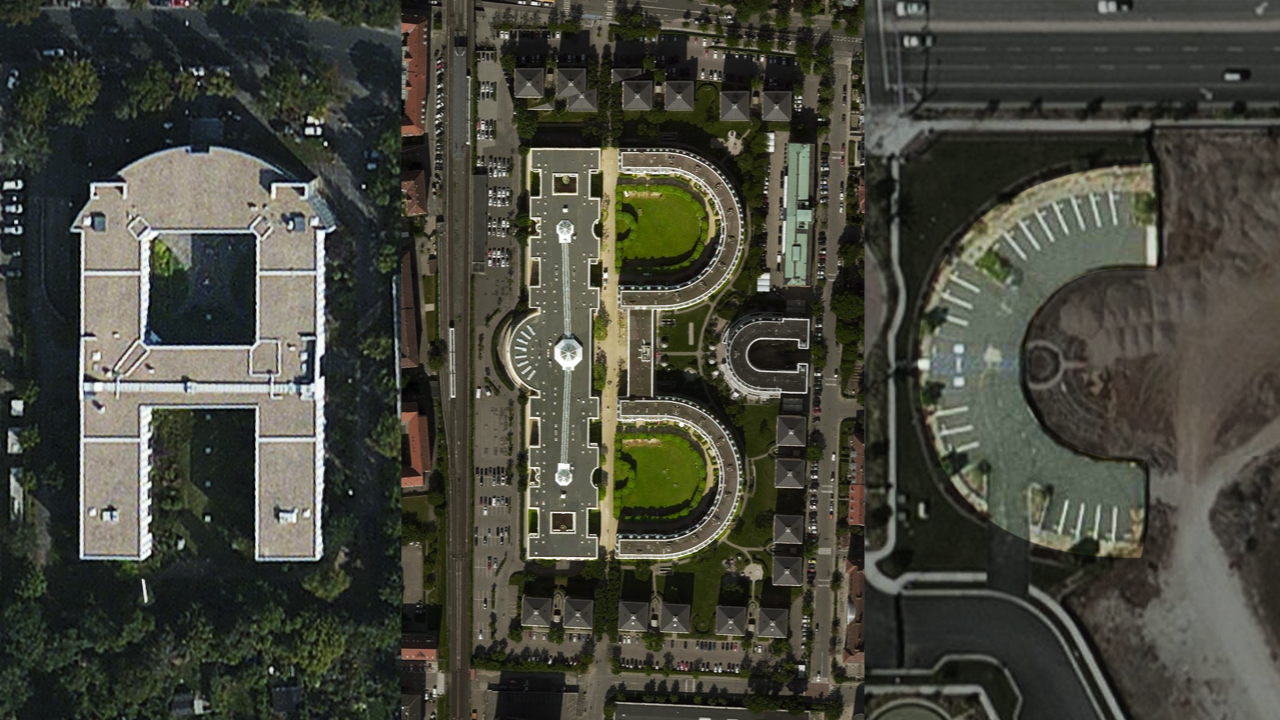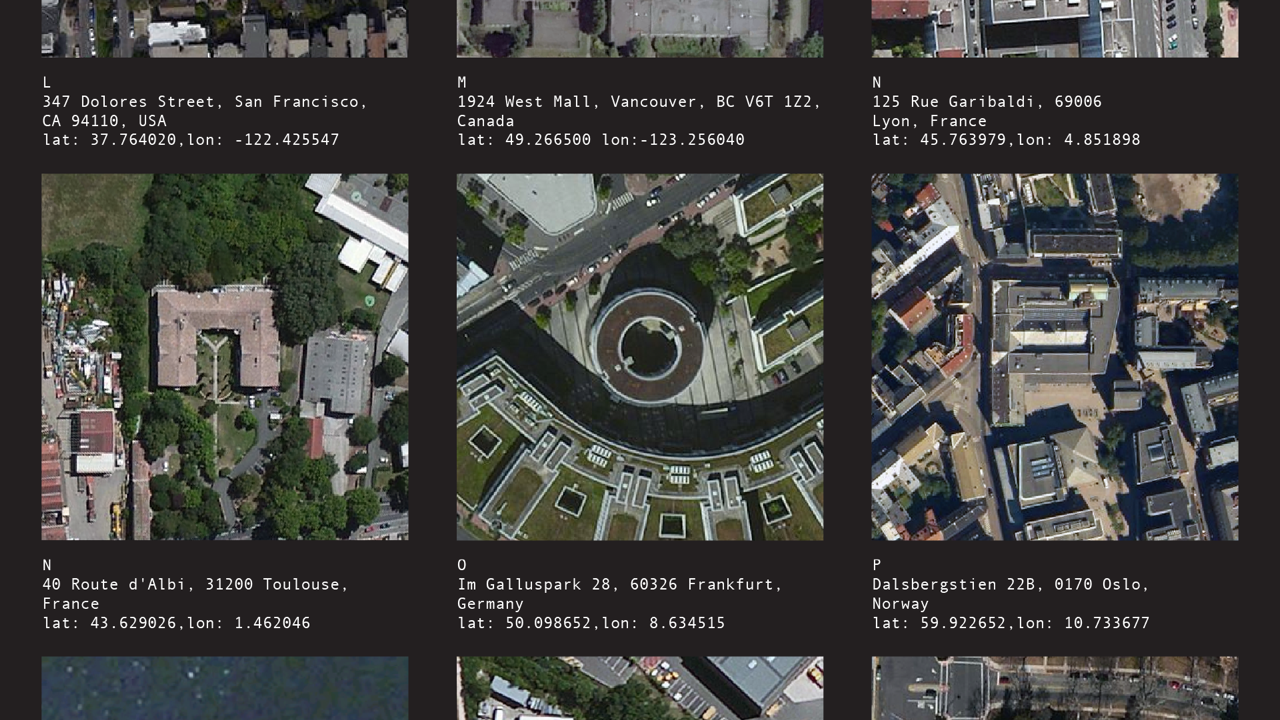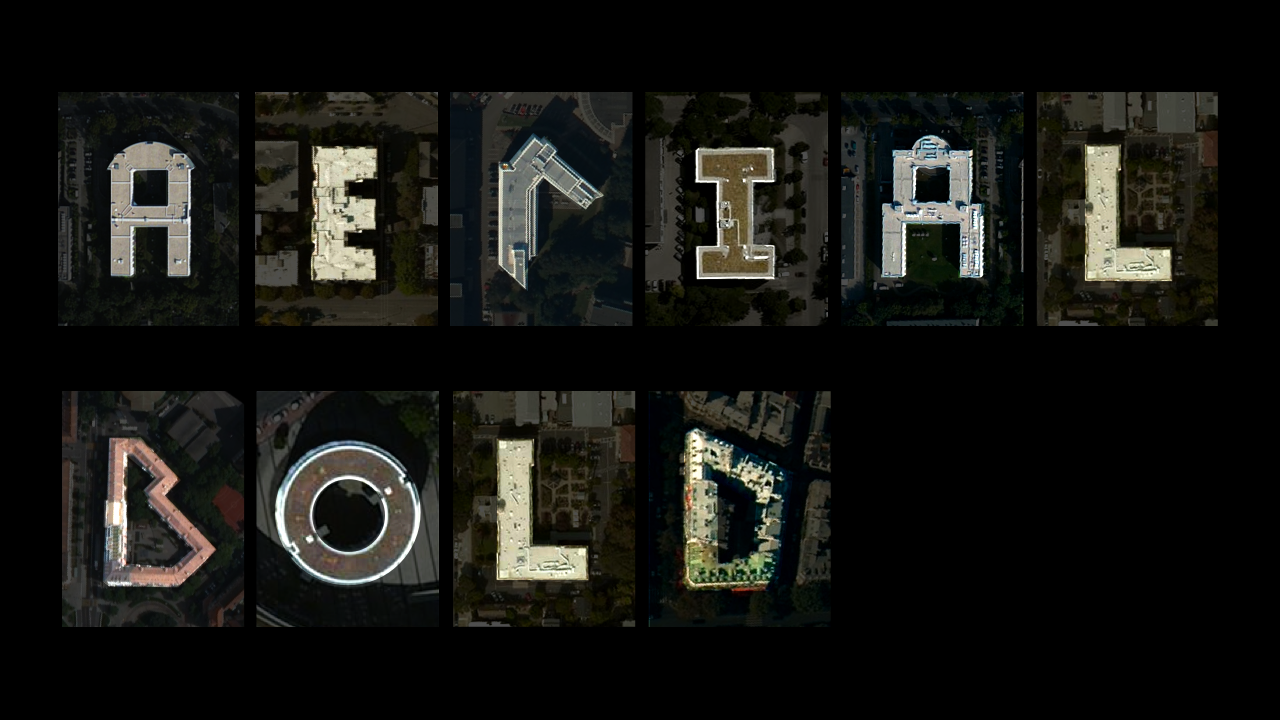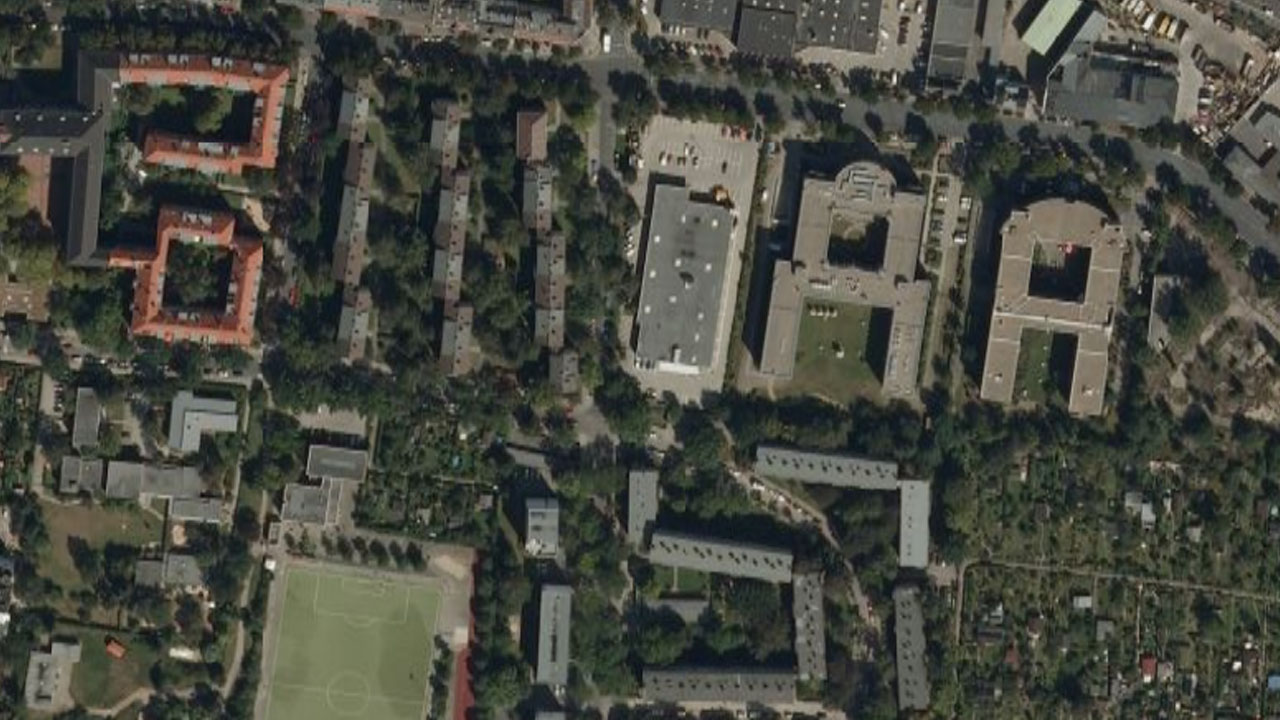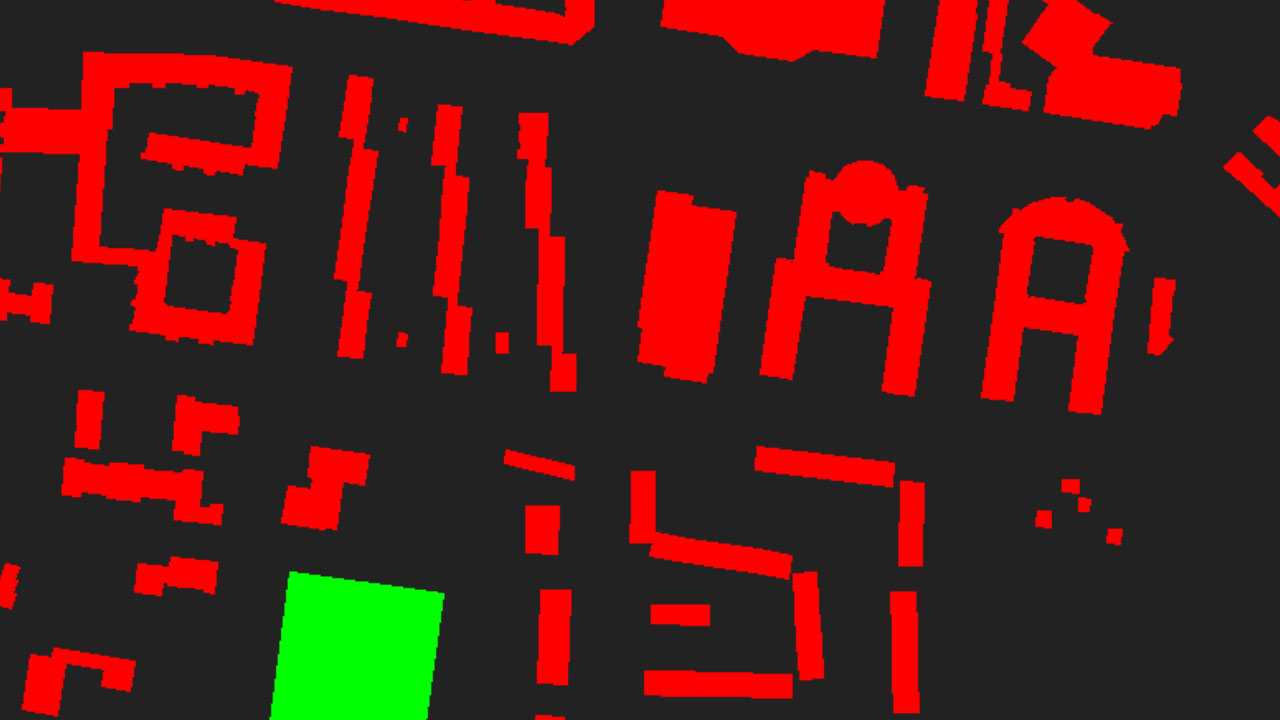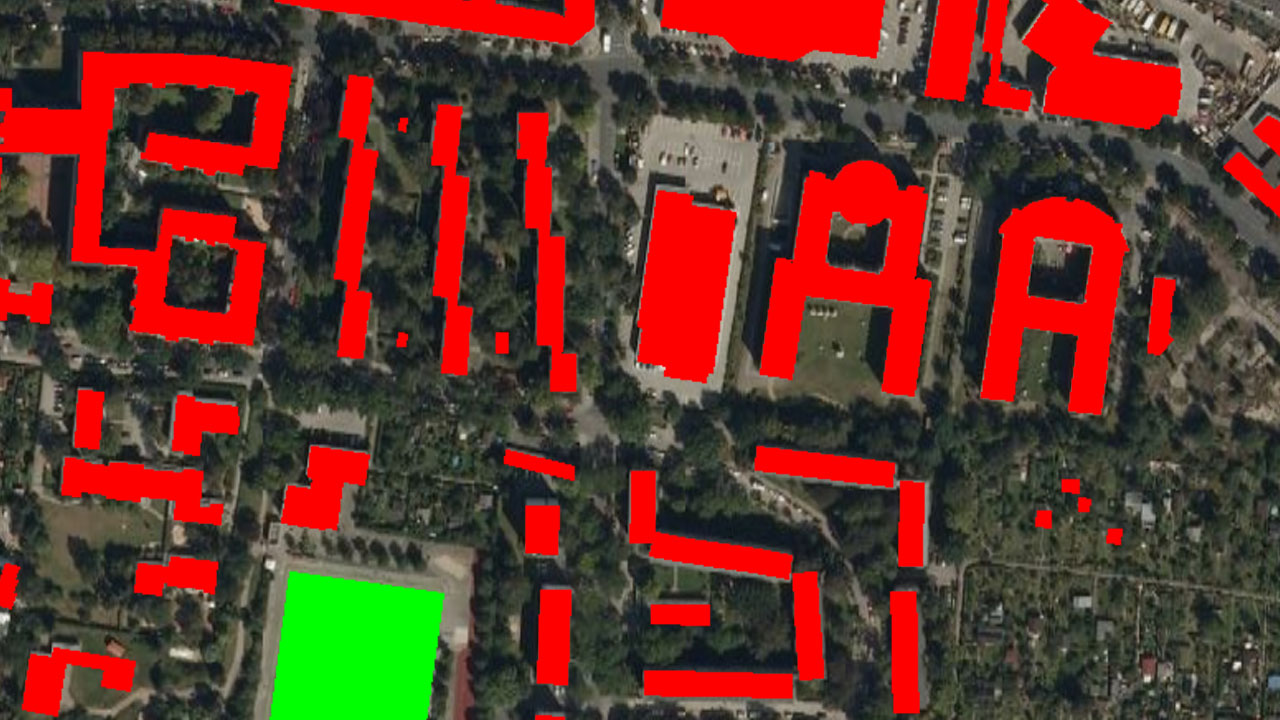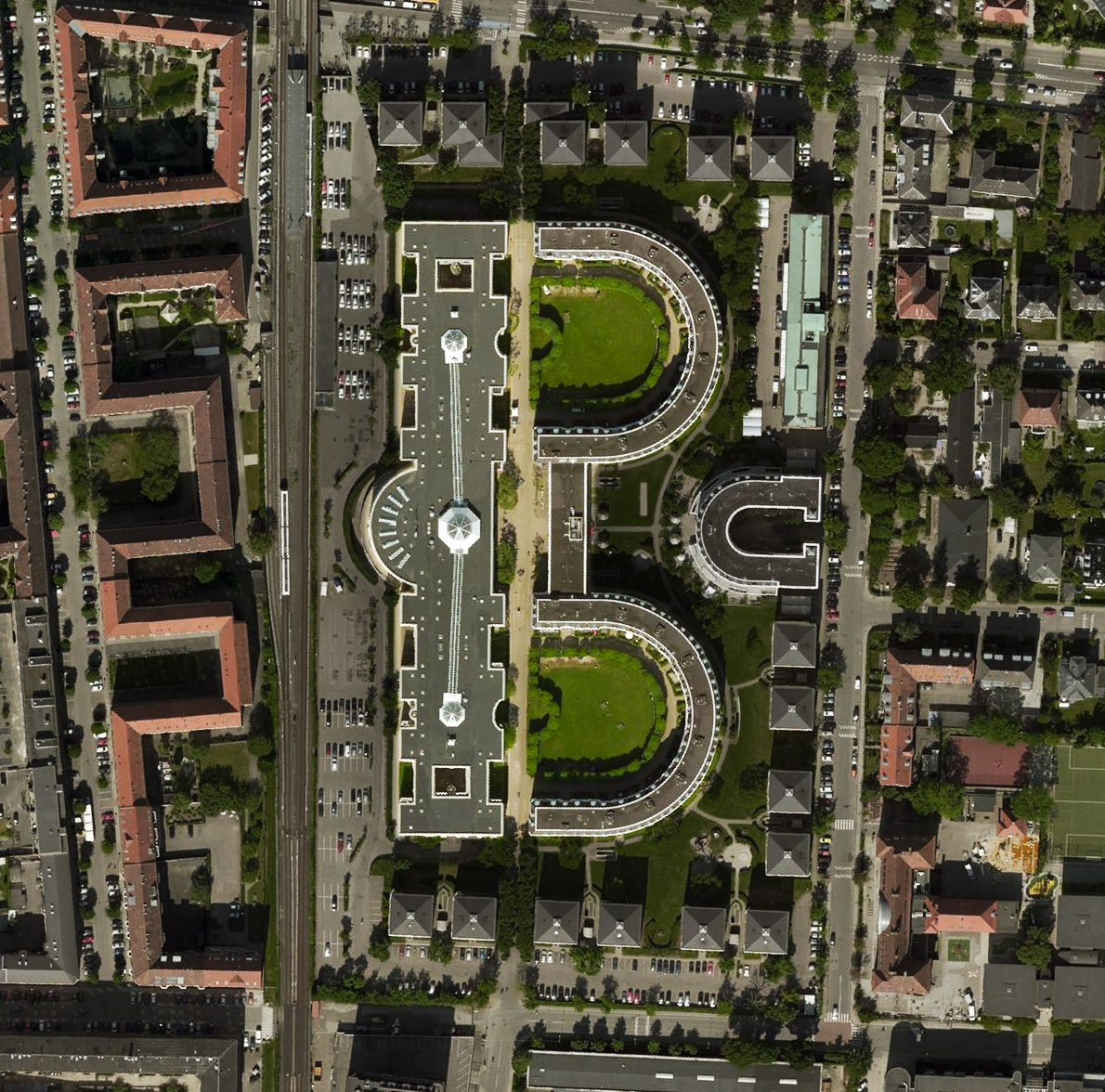
7 things you should know about Earth’s alphabet shapes
We love Kickstarter. We are obsessed about typography. We live on Earth. We think Carl Sagan is the greatest astronomer of all species. We are more than happy that our favorite typographic project on Kickstarter is actually being funded already but on this economy, sky is the limit. So be prepared for Aerial Bold because the first map and typeface of Earth is on it’s way and yes, you can have your very own earthly letter because..., well, at last you can. “We will find Earth’s alphabet shapes and make a new font and dataset for you” says the duo behind Aerial Bold. These are seven more things to know about Aerial Bold, Earth’s true-and-only-alphabet.
1. It takes a two-man army to map our aerial typographic views
Benedikt Groß, a German speculative designer, and Joey Lee, an American geographer, teamed up in 2012 and together made the Big Atlas of LA Pools - a collection of 74 books cataloging all of the pools in Los Angeles.
“We were surprised by how much data we could generate and became more and more fascinated with the process of mapping features from aerial imagery”.
2. We don’t know what we inhabit
Discovering the world from above is a task of great proportions for Benedikt and Joey. “Contrary to popular belief, much of the world has not been mapped. While nearly the entire earth has been photographed from space, there are still gaps in what features are embedded in those images. Only by processing, filtering, drawing onto them, and semantically enriching these images can we understand what features exist in that space. Whether it is done through manual labor or automated through computer vision, there are still many things left to map in the world” they add while searching for what Earth really looks like from above.
3. Kickstarting is the way to go
Any creative mind, any project, any graphic designer, any typophile, any scientist with an idea has Kickstarter on his side. “As a followup to the Big Atlas of LA Pools, we decided to scale up our efforts”. To “read the landscape”, this is how they define their new task. “We are now embarking on a journey to find letterforms in the earth’s surface. Using Kickstarter to generate funding support, we will attempt to build the first map and typeface of the earth by developing a set of unique image processing algorithms and tools which can be accessed by supporting the project.”
4. The typography of Earth will be an amazing typeface obviously
It is a call to inspiration and a tool for creation or, to put it briefly, the following 33 words sum up why we like the Aerial Bold typographic project. “Along with making a fun project that will result in a usable typeface for your favorite word processor we will provide a huge amount of data for people to use in their typographic/geographic/art.” Sounds great.
5. We are not alone
Joey and Benedikt are not referring to some alien life-form. They are talking about the typography of our lovely Big Blue Dot. The quest to find letterforms in geography has been a fascination shared by many different people for many years. Projects such as Laura Devendorf’s “AnyType”, Amandine Alessandra & Rute Nieto Ferreira’s “The Big Letter Hunt” and Louise Dib’s “WorldType” are testaments to people’s interest finding familiar shapes in space. Carl Sagan would be so proud of them.
6. This is their mojo
“What makes Aerial Bold unique is the attempt to make an extensive, global catalog of these letterforms as well as develop a set of automated tools to do so.”